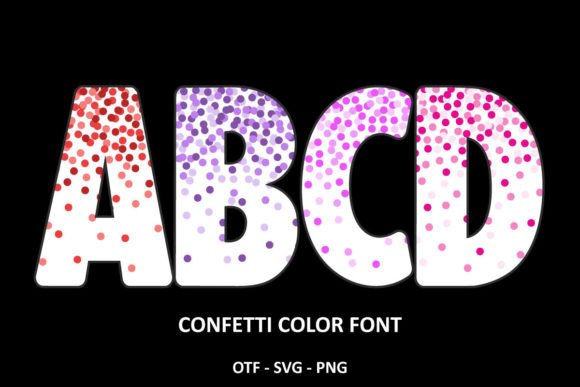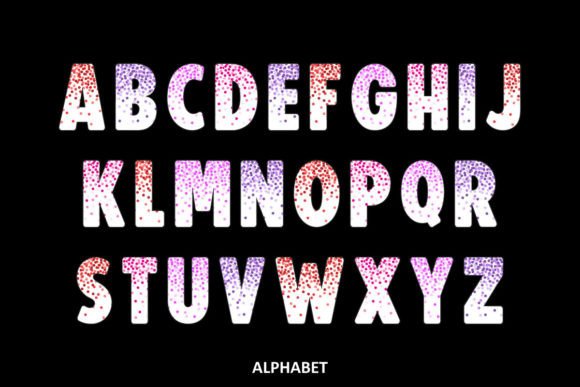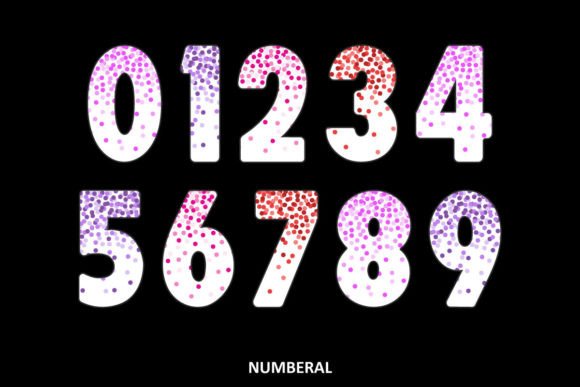
Confetti Color Font
Getting ready to celebrate something special? I’ve created a font that is very colorful and is ready for any celebration. Our Confetti color font will be the life of the party! Hooray! This lively lettering will be perfect for birthday cards, tags and bulletin boards, party invitations, decorations, and favors.The black version of this font is compatible with Cricut Design Space and other cutting machines.Note! The color version of this font is only compatible with certain design programs incl. PhotoShop, Illustrator, Silhouette, and Inkscape. The OTF and/or TTF files of the color version are not compatible with Cricut. For more information on how to use this type of font please check our Ultimate Font Guide .